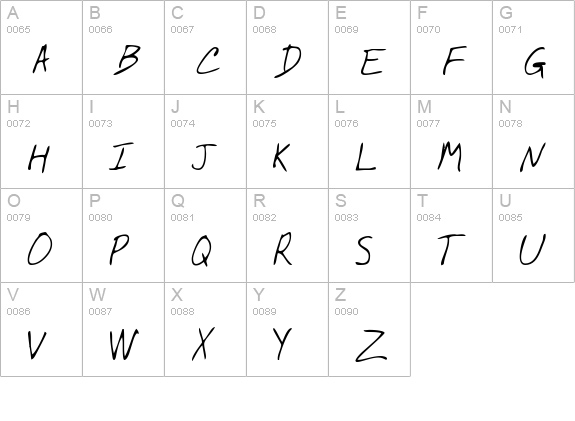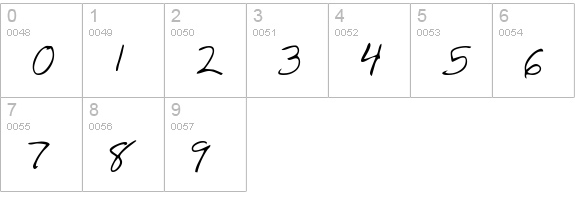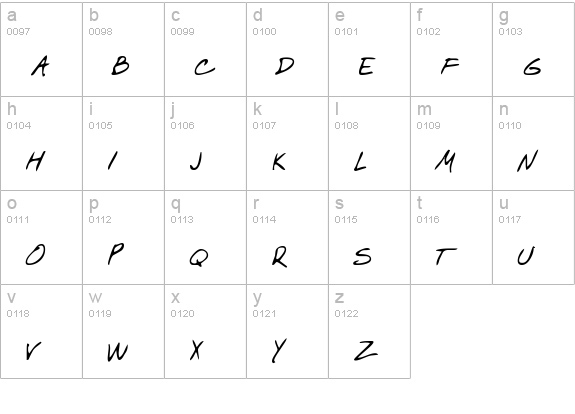
WallysHand Regular Font Details
WallysHand Regular is the standard, neutral variant in the WallysHand typeface family \xE2\x80\x94 well suited to general body text, paragraphs, and standard typographic work.
Introducing WallysHand Regular, a charming and versatile font that effortlessly captures the essence of handwritten elegance. This font is the perfect choice for all your design needs, adding a touch of personality and creativity to any project. With its fluid strokes and unique letterforms, WallysHand Regular brings a sense of authenticity and warmth to your designs. Whether you're working on invitations, greeting cards, logos, or branding materials, this font will make your text stand out and leave a lasting impression. What's even better is that WallysHand Regular is freely available to download at FontsMarket.com. Yes, you read that right - absolutely free! You can enhance your designs without any additional cost or hassle. Designed with legibility in mind, WallysHand Regular maintains clarity even at smaller sizes, making it suitable for both print and digital projects. Its generous spacing and balanced proportions create a harmonious and visually pleasing composition, ensuring that your message is conveyed effortlessly. With a wide range of characters and ligatures, WallysHand Regular offers endless possibilities for customization. It allows you to experiment, mix and match, and create truly unique typographic compositions that reflect your personal style and creativity. So why wait? Unleash your creativity and elevate your designs with the captivating charm of WallysHand Regular. Download this font for free at FontsMarket.com and discover the endless possibilities it brings to your creative endeavors.